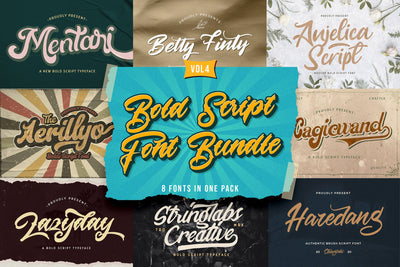
Bold Script Font Bundle Vol 4
Bold Script Font Bundle Vol 4 is a beautiful retro and vintage styled script font. This font bundle contains 8 high quality bold script font, It reads as strong, confident, and dynamic and can add tons of nostalgic character to your designs, and also that will look particularly adept when used in logos, branding, packaging design, and much more. It has beautiful and well balanced characters and as a result, it matches a wide pool of designs. Add it to your most creative ideas and notice how it makes them come alive!
1. Mentari
2. Magicwand
3. Haredang
4. Stringlabs Creative
5. Lazyday
6. Aerillyo
7. Anjelica Script
8. Betty Finty